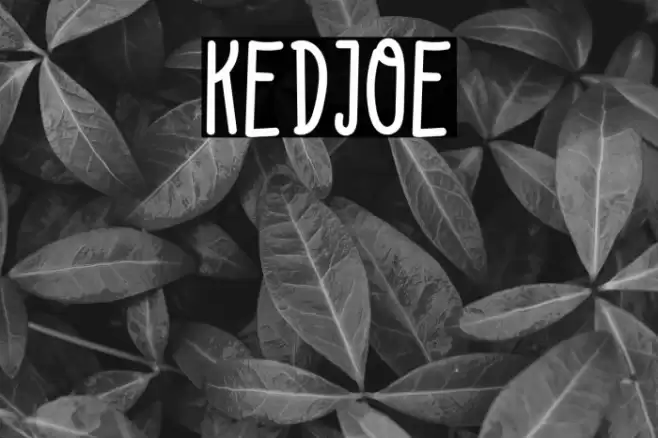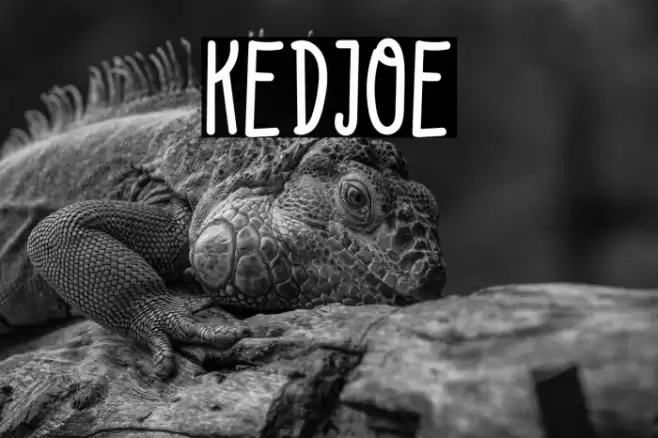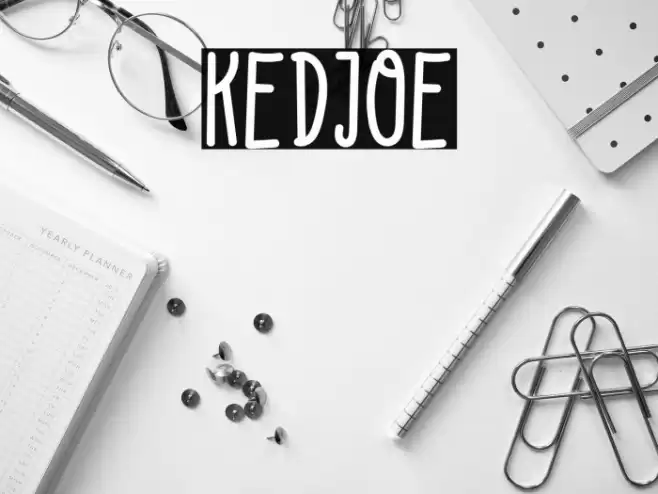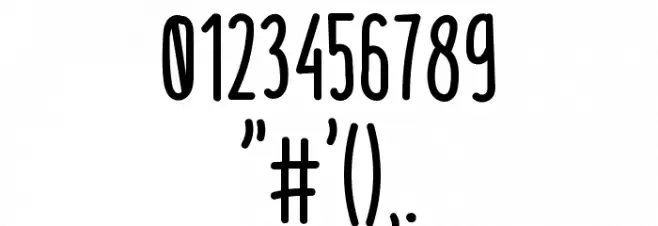
KEDJOE Font
KEDJOE Description
This font features a playful and whimsical style with a handwritten appearance. The letters are slightly elongated and have a casual, informal feel. The strokes are consistent in width, giving it a uniform look, while the rounded edges add a friendly touch. The uppercase and lowercase letters maintain a cohesive design, and the numerals are clear and easy to read. Special characters are crafted with the same playful aesthetic, making this font suitable for creative projects.
A playful, handwritten-style font with rounded edges and consistent strokes from Regular fonts.
- Proposed Projects: Ideal for children's books, greeting cards, playful branding, and casual invitations.
- Overall Style: Playful
- Use Case: Headlines, Logos, Invitations